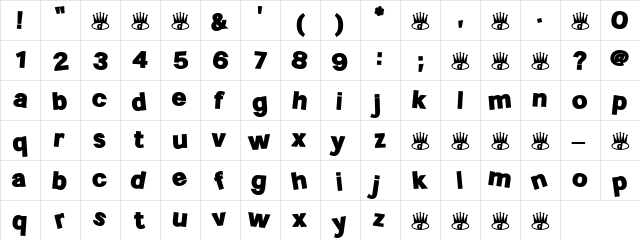
CloseShave Regular
Design Context for CloseShave Typeface
CloseShave offers clean, dependable letterforms without strong stylistic allegiance, making it a practical choice for designers who need flexibility.